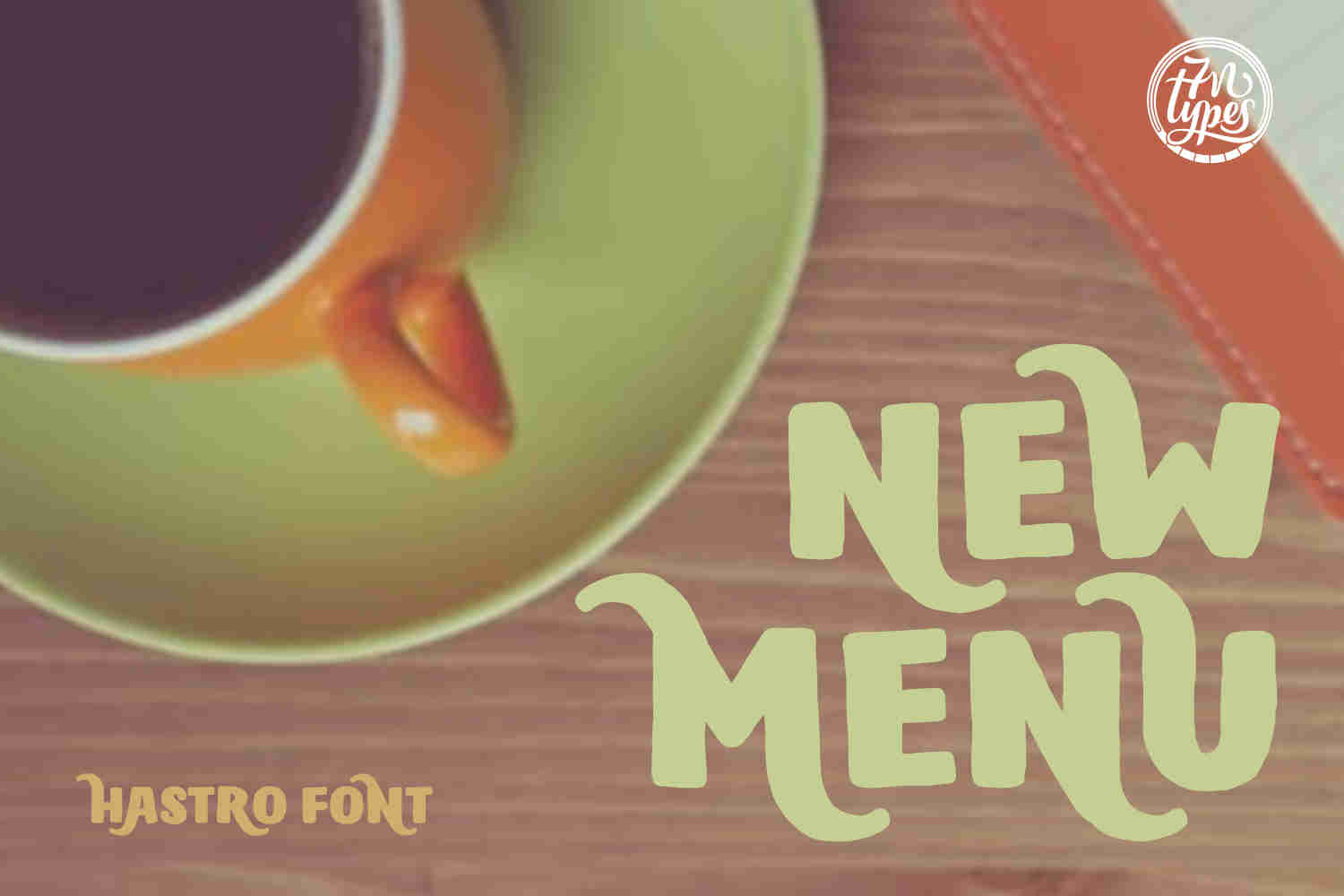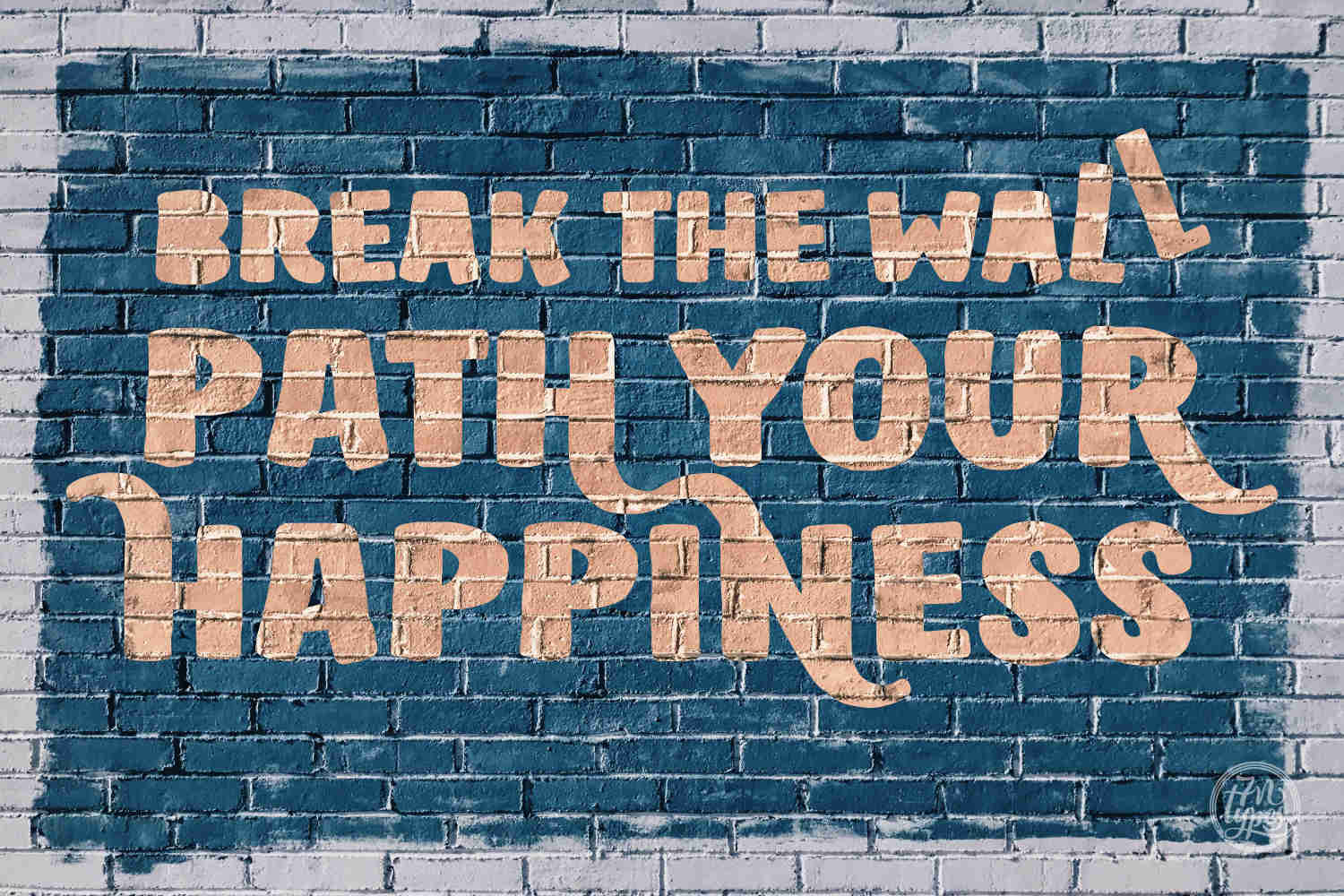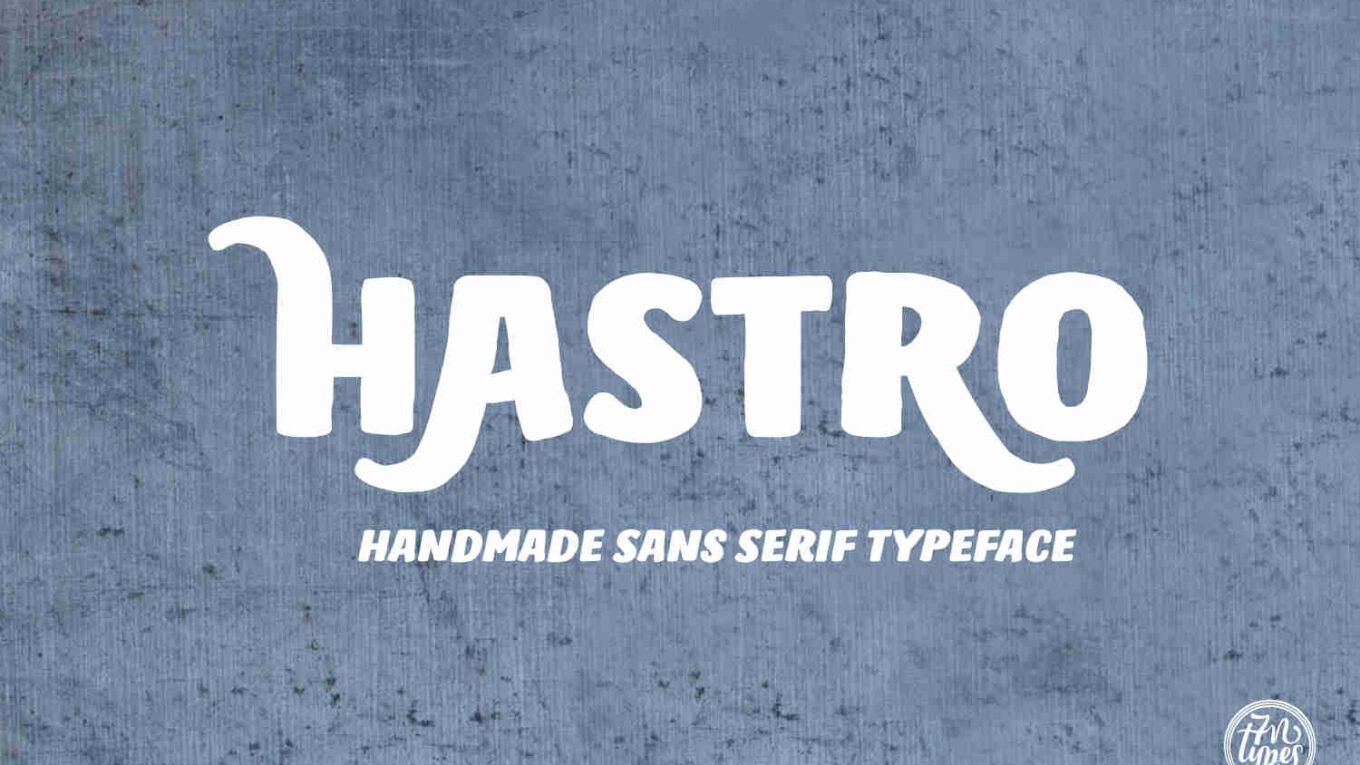
Hastro Font: A Strong Expressive Typeface with a Personal Touch
Are you tired of using the same old fonts in your designs? Look no further than Hastro Font, a unique and expressive typeface that’s sure to add a personal touch to your projects. With its strong, sans serif base and rough edges, Hastro is perfect for designers and crafters who want to add a bit of character to their work.
The Characteristics of Hastro Font
Hastro Font is a versatile typeface that’s designed to make a statement. Its sans serif base gives it a clean and modern look, while its slightly rough edges add a touch of personality and whimsy. But what really sets Hastro apart is its PUA encoded swashes, which allow you to add a bit of flair to your designs. Whether you’re working on a logo, a poster, or a website, Hastro Font is the perfect choice for anyone who wants to add a bit of style and sophistication.
Variations of Hastro Font
Hastro Font comes in two variations: Regular and Italic. The Regular version is perfect for body text and other applications where you want a strong, straightforward font. The Italic version, on the other hand, adds a bit of elegance and sophistication, making it perfect for headings, titles, and other applications where you want to make a statement.
For those who may not be familiar, PUA (Private Use Area) encoding is a way of encoding font characters that allows for custom glyphs and swashes. In the case of Hastro Font, the PUA encoded swashes allow you to add a bit of flair to your designs, giving you more creative control and flexibility. This means you can use the font to create unique and eye-catching designs that stand out from the crowd.
Who is Hastro Font for?
Hastro Font is perfect for designers, crafters, and anyone who wants to add a bit of personality to their work. Whether you’re a professional designer or just starting out, Hastro Font is a great choice for anyone who wants to create unique and eye-catching designs. It’s also perfect for crafters who want to add a personal touch to their projects, such as handmade cards, scrapbooking, and other paper crafts.
Tips for Using Hastro Font
Here are a few tips for using Hastro Font in your designs:
• Use the Regular version for body text and other applications where you want a strong, straightforward font.
• Use the Italic version for headings, titles, and other applications where you want to make a statement.
• Experiment with the PUA encoded swashes to add a bit of flair to your designs.
• Pair Hastro Font with other fonts to create a unique and eye-catching design.
In conclusion, Hastro Font is a strong expressive typeface that’s perfect for designers and crafters who want to add a bit of personality to their work. With its sans serif base, rough edges, and PUA encoded swashes, Hastro Font is a versatile and stylish font that’s sure to make a statement. Whether you’re working on a logo, a poster, or a website, Hastro Font is a great choice for anyone who wants to create unique and eye-catching designs.
Key Features of Hastro Font
• Strong, sans serif base
• Slightly rough edges for a personal touch
• PUA encoded swashes for custom glyphs and swashes
• Comes in 2 variations: Regular & Italic
• Perfect for designers, crafters, and anyone who wants to add a bit of personality to their work